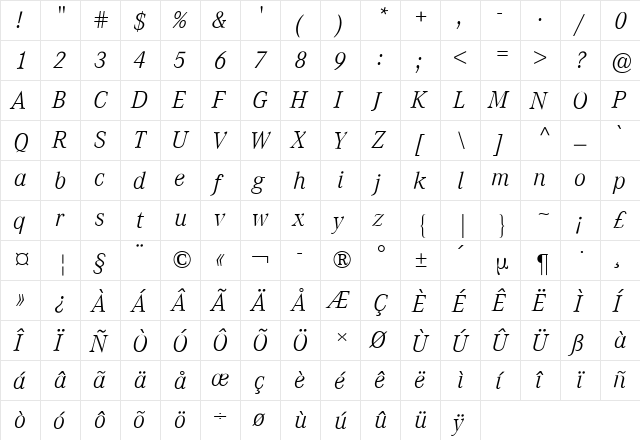
Corporate A BQ Light Italic Font Preview
Design Context for Corporate A BQ Typeface
Corporate A BQ takes a measured approach to typography — its balanced proportions and neutral character make it a reliable workhorse for both digital and print work. Its italic angle brings a sense of urgency and motion to the letterforms. The delicate stroke weight brings airiness and refinement to layouts.